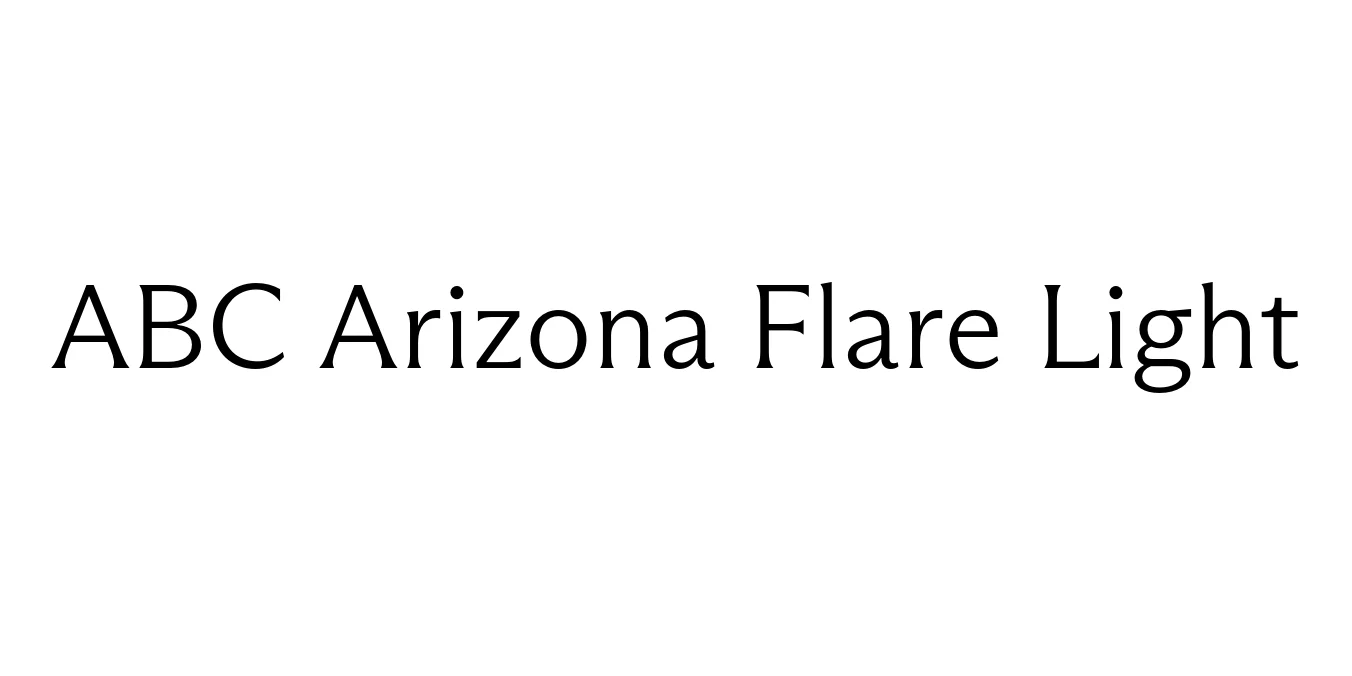
ABC Arizona Flare Light
Designed by Elias Hanzer
| Category | Flare Serif / Humanist Sans |
| Designer | Elias Hanzer |
| Similar Fonts | Optima, Albertus, Zapf Humanist, Stellar |
ABC Arizona Flare Light is a sophisticated component of the expansive Arizona superfamily, designed by Elias Hanzer for the renowned Swiss type foundry Dinamo. This typeface represents a unique bridge between the clarity of a sans-serif and the character of a serif, featuring subtle, elegant flares at the terminals. It was conceived as part of the first-ever superfamily to encompass five distinct structural styles, allowing for a seamless transition across a wide typographic spectrum while maintaining a consistent skeletal structure.
The Light weight specifically emphasizes the font's airy and poetic nature, making it a favorite for contemporary editorial design and luxury branding. Its construction balances a strict geometric grid with humanistic, calligraphic touches, resulting in a face that feels both technological and organic. ABC Arizona Flare Light excels in environments where a touch of refinement and modern elegance is required without the heavy visual footprint of traditional serifs.
ABC Arizona Flare Light Best Uses
Perfect for magazine headers, sophisticated layouts, and artistic publications.
Ideal for minimalist logos, luxury fashion labels, and high-end corporate identities.
Adds a refined and modern aesthetic to portfolio websites and digital lookbooks.
Excellent for invitations, business cards, and exhibition catalogs.